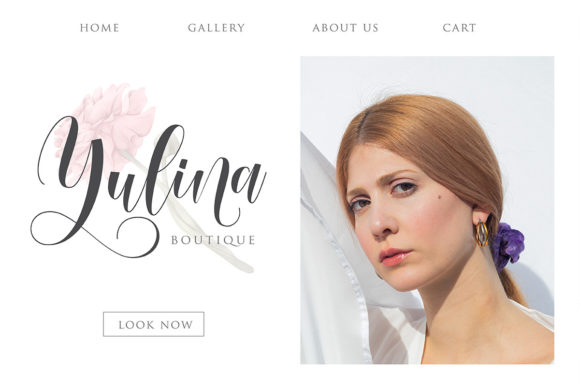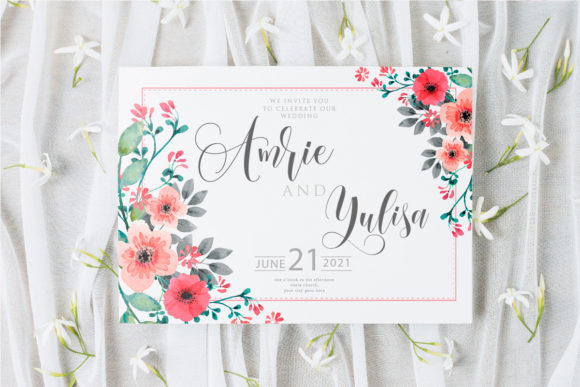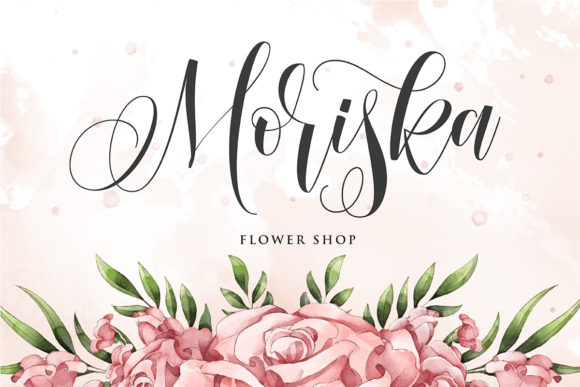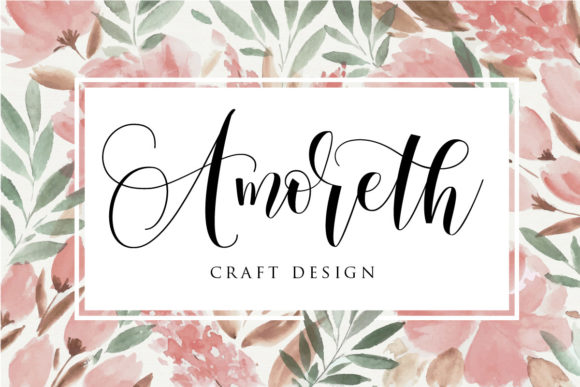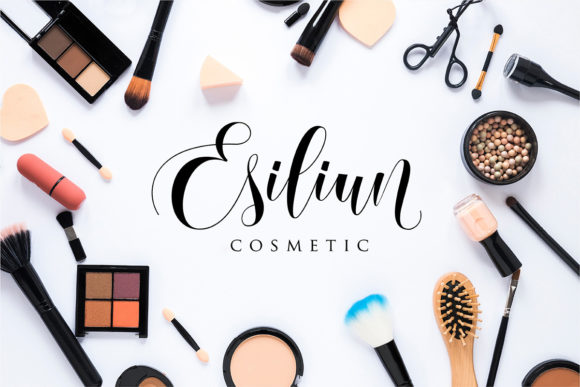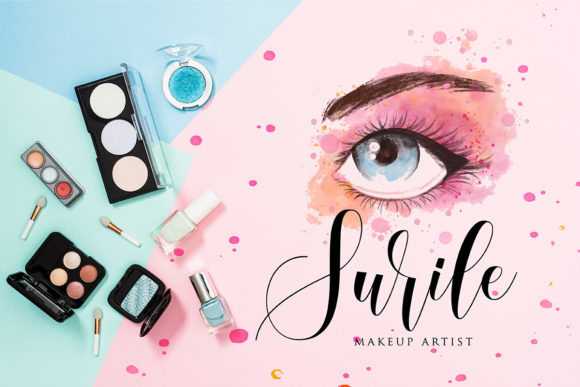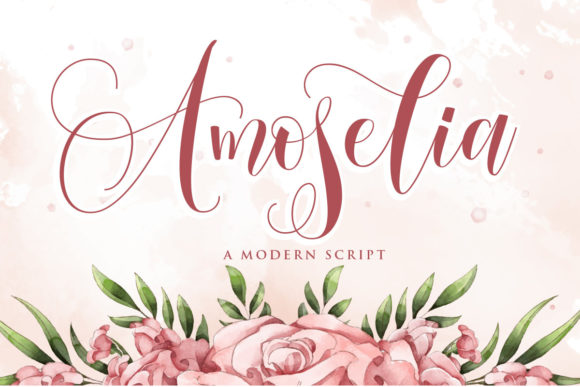
Introducing Amoselia Font: Elevate Your Designs with Luxury and Elegance
Are you a designer or crafter looking for a unique and stunning font to add a touch of luxury to your projects? Look no further than Amoselia Font! This beautiful light handwritten font is designed to make a lasting impact and leave a lasting impression. With its distinctive feel and elegant style, Amoselia is the perfect choice for anyone seeking to elevate their designs and add a spark of sophistication.
What Makes Amoselia Font So Special?
Amoselia Font is a masterpiece of typography, boasting a range of characteristics that set it apart from other fonts. Here are just a few reasons why Amoselia is a cut above the rest:
• Unique Feel: Amoselia’s handwritten style has a distinct personality that is both elegant and approachable. Its light weight and airy texture make it perfect for designs that require a touch of sophistication without being too overpowering.
• Stunning Impact: The font’s unique feel and elegant style combine to create a stunning impact that will leave a lasting impression on your audience. Whether you’re designing a logo, branding materials, or social media graphics, Amoselia is sure to turn heads.
• Luxury Spark: Amoselia is designed to add a touch of luxury to any design project. Its sophisticated style and elegant feel make it perfect for high-end branding, packaging, and advertising.
• PUA Encoded: Amoselia Font is PUA (Private Use Area) encoded, which means you can access all of the amazing glyphs and ligatures with ease. This makes it simple to incorporate the font into your designs and take advantage of its full range of features.
Amoselia Font is a versatile and adaptable font that is perfect for a wide range of design projects. Here are just a few examples of how you can use Amoselia to elevate your designs:
• Branding and Logo Design: Use Amoselia to create stunning logos and branding materials that reflect your brand’s personality and style.
• Social Media Graphics: Add a touch of elegance and sophistication to your social media graphics with Amoselia. Its light weight and airy texture make it perfect for creating eye-catching graphics that will stand out in crowded feeds.
• Packaging and Advertising: Amoselia’s luxurious style and elegant feel make it perfect for high-end packaging and advertising. Use it to create stunning packaging designs, billboards, and print ads that will leave a lasting impression.
• Stationery and Invitations: Use Amoselia to create beautiful stationery, invitations, and greeting cards that are sure to impress. Its elegant style and sophisticated feel make it perfect for formal events and special occasions.
Tips for Using Amoselia Font
To get the most out of Amoselia Font, here are a few tips to keep in mind:
• Experiment with Ligatures: Amoselia’s PUA encoding makes it easy to access a range of ligatures and glyphs. Experiment with different combinations to add a unique touch to your designs.
• Play with Font Sizes: Amoselia’s light weight and airy texture make it perfect for use at a range of font sizes. Experiment with different sizes to find the perfect fit for your design.
• Pair with Other Fonts: Amoselia pairs beautifully with other fonts. Experiment with different combinations to find the perfect pairing for your design.
Amoselia Font is a stunning light handwritten font that is sure to elevate your designs and add a touch of luxury and elegance. With its unique feel, stunning impact, and PUA encoding, Amoselia is the perfect choice for designers and crafters looking to create high-end designs that will leave a lasting impression. Whether you’re designing logos, branding materials, social media graphics, or packaging, Amoselia is the perfect font for you.